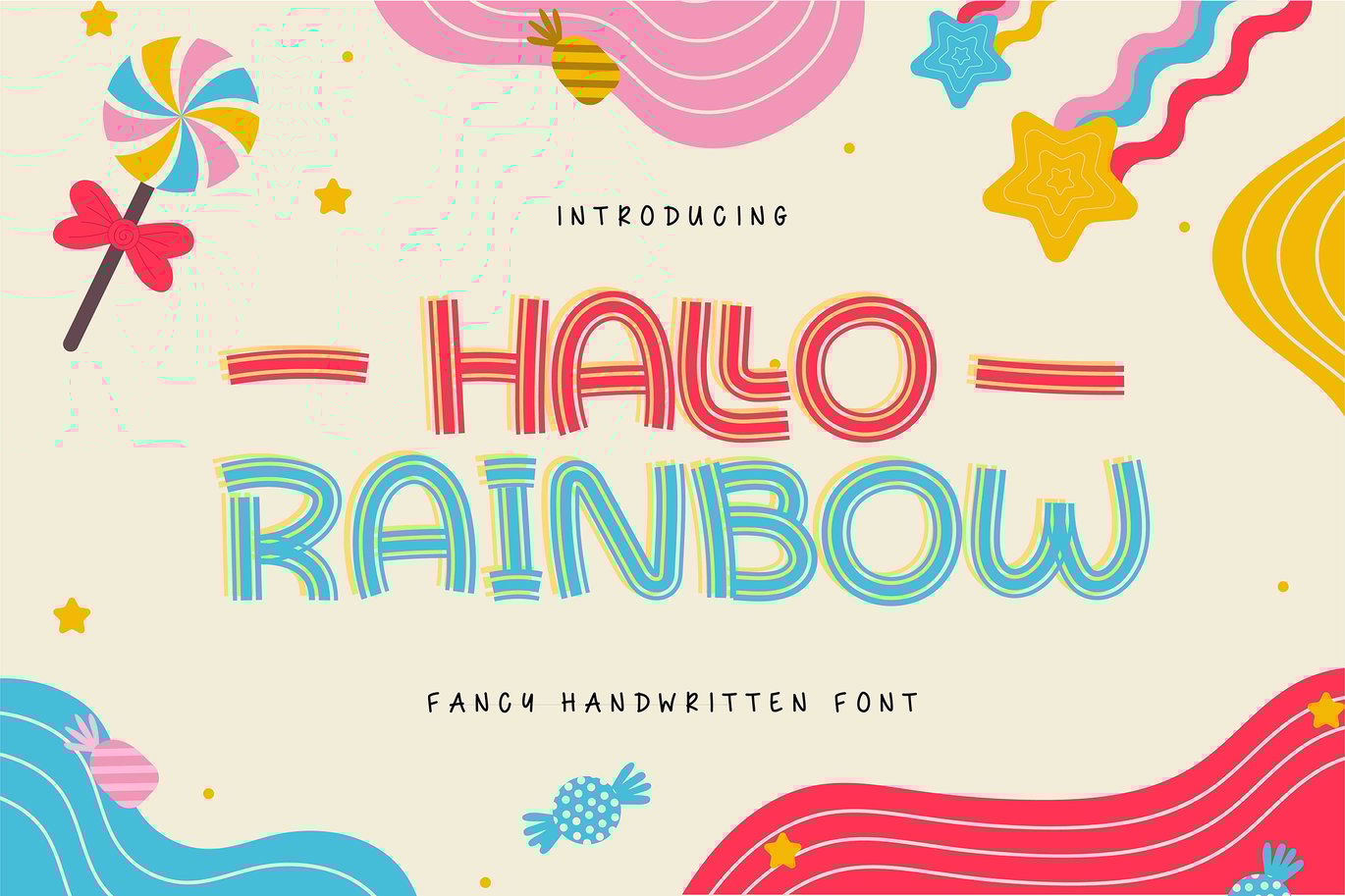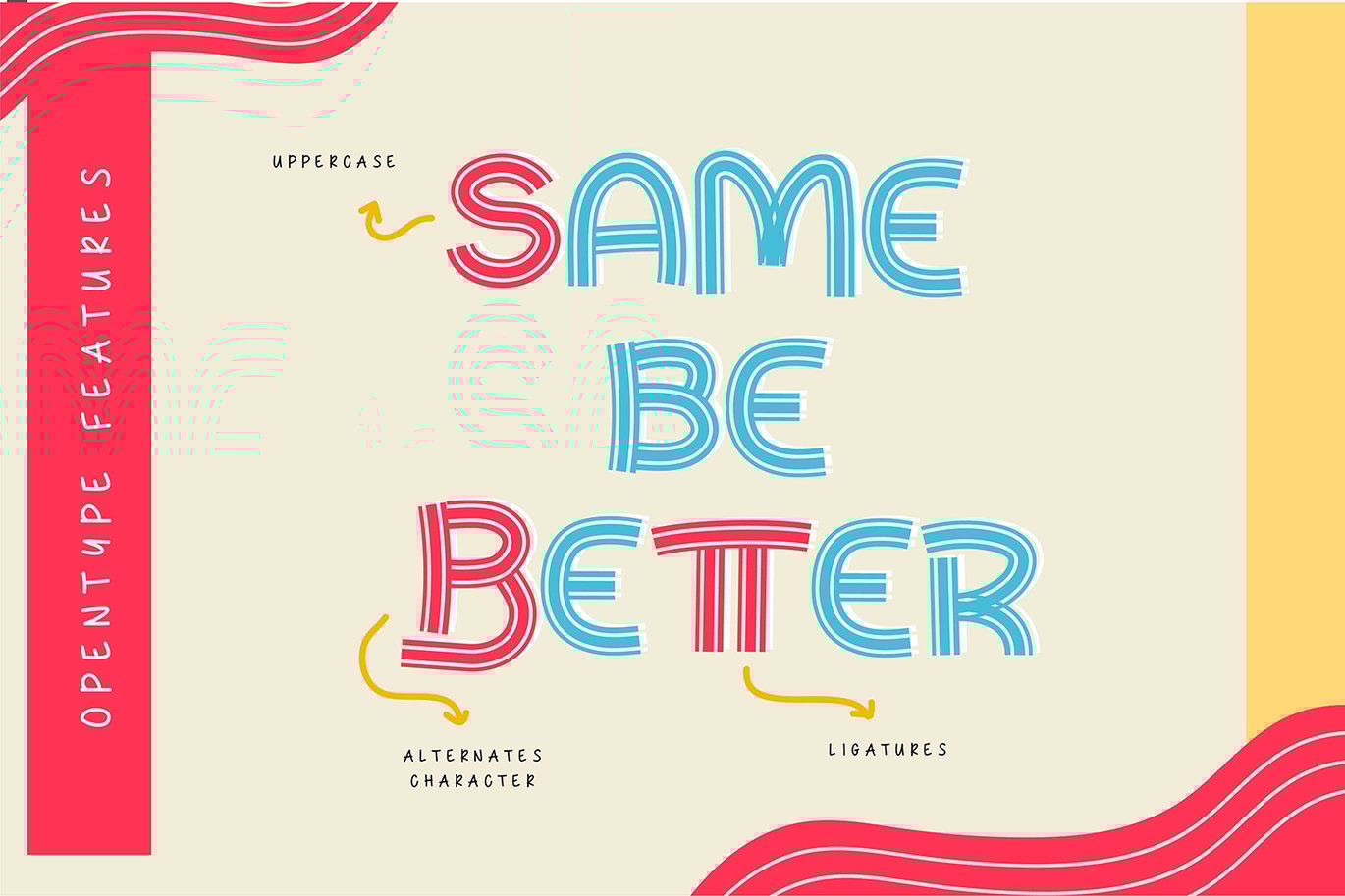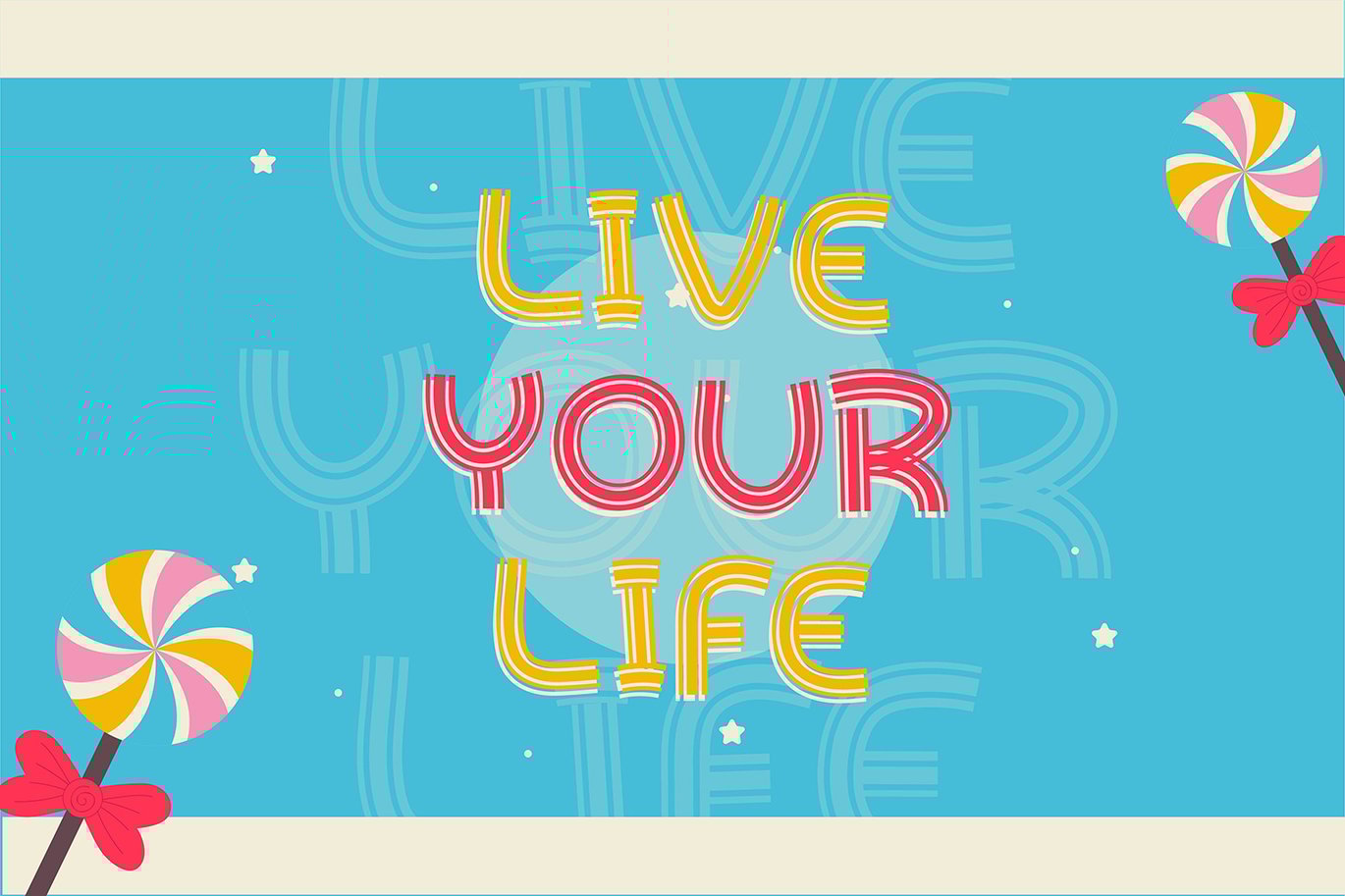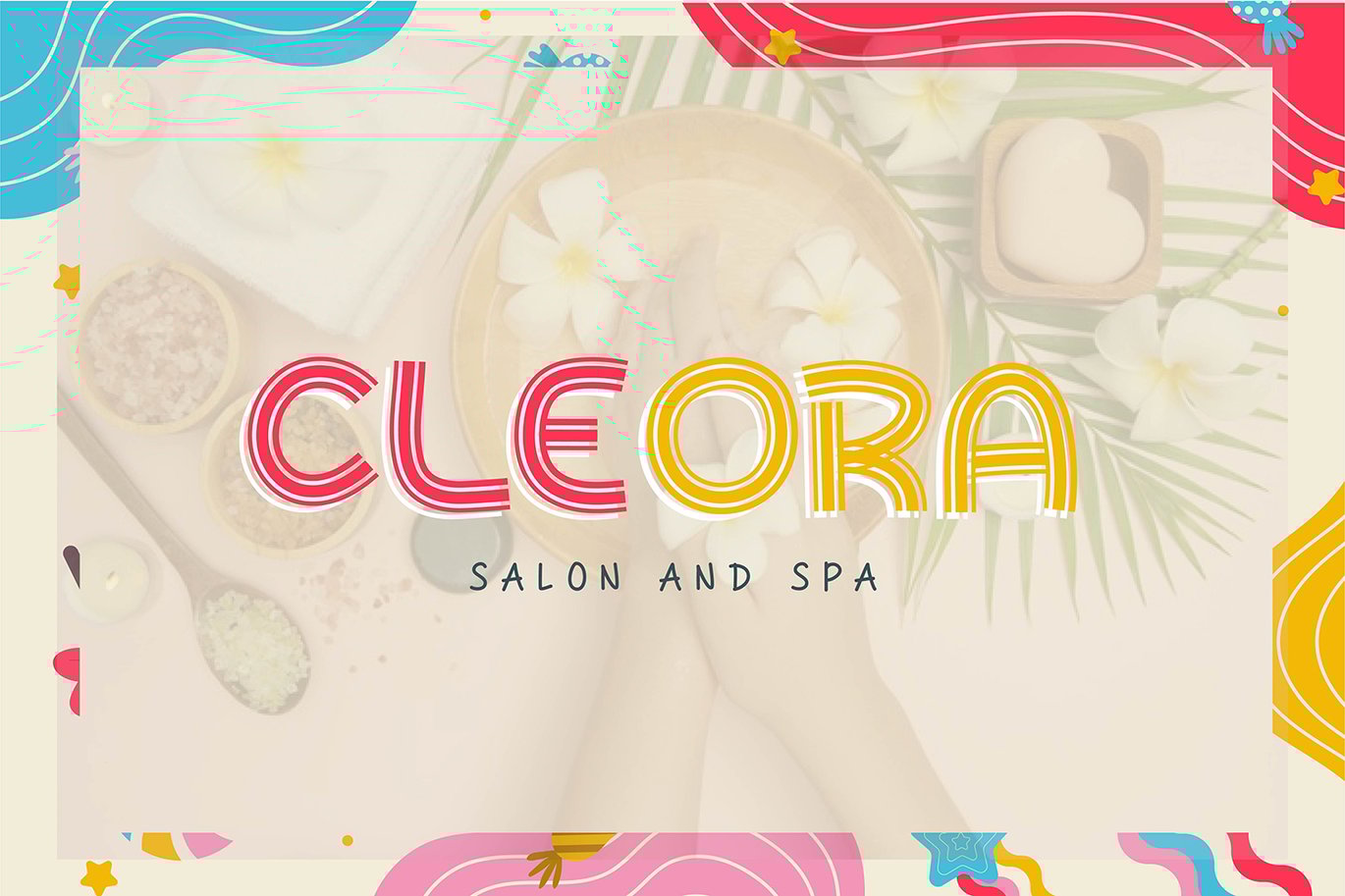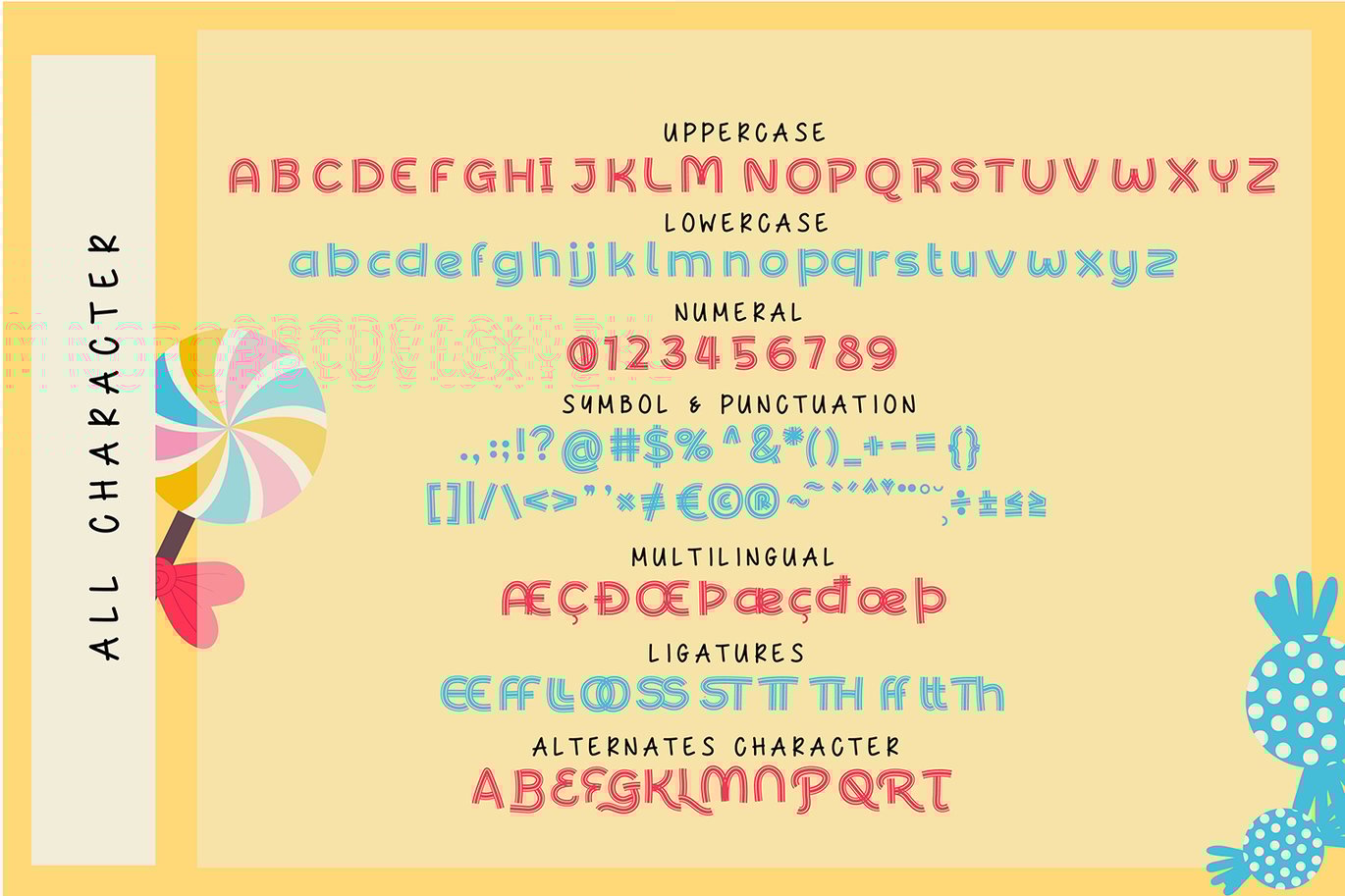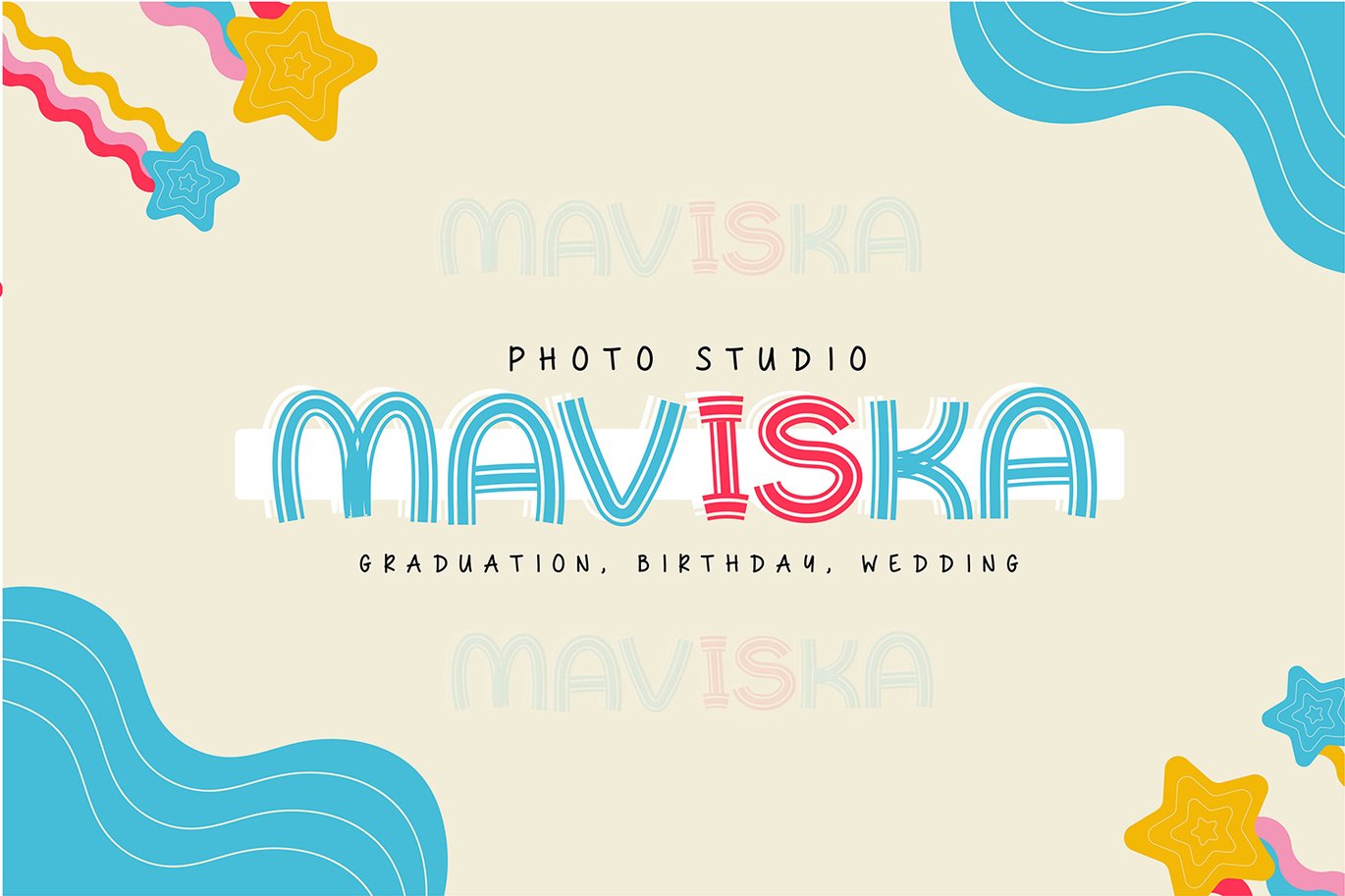
Hallo Rainbow | Fancy Handwritten Font
Hallo Rainbow | Fancy Handwritten Font with a calligraphy style, So beautiful on invitation like greeting cards, branding materials, business cards, quotes, posters, and more!